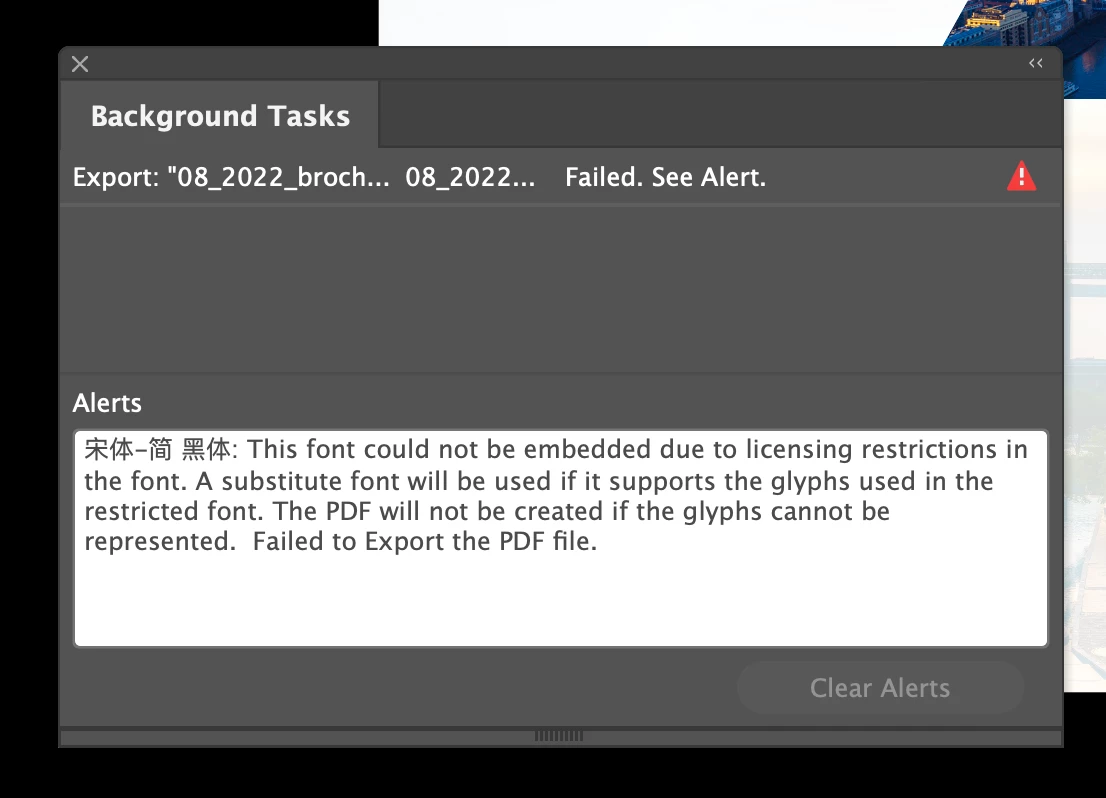
PDF exporting problem with Chinese font - HELP!
I have a document with Chinese fonts
• PingFang SC
• SimSong
When I try to export it, this message comes up.
The fonts I used are Open fonts but they don't seem to work.
I have a very short deadline and I need help!
For the document I need both Serif and Sans Serif simplified Chinese font.
Please let me know how I can solve this problem.
You need to change fonts: as it is written, there are licensing restrictions that forbid these fonts (or one of these) to be embedded in the PDF. I think that the restriction is on the SimSong font (that I have not on my Mac), since I am able to create a PDF with a document using PingFang SC
For the document I need both Serif and Sans Serif simplified Chinese font.
Well, I don't love them, but you can always use Noto Sans SC and Noto Serif SC. They're free to use. I don't love the way they render in InDesign; if you use any kerning value but 0, they display with compressed punctuation, so I always use the paragraph or character style (or Find/Change window) to specify a kerning value of zero for all Noto SC fonts.
You probably have other fonts supporting Simplified Chinese already installed on your machine, but it might be safer & faster to just download some known-good fonts and do some work with either your Paragraph Styles (assuming you used 'em) or the Type -> Find Font window (assuming you didn't).
You need to change fonts: as it is written, there are licensing restrictions that forbid these fonts (or one of these) to be embedded in the PDF. I think that the restriction is on the SimSong font (that I have not on my Mac), since I am able to create a PDF with a document using PingFang SC